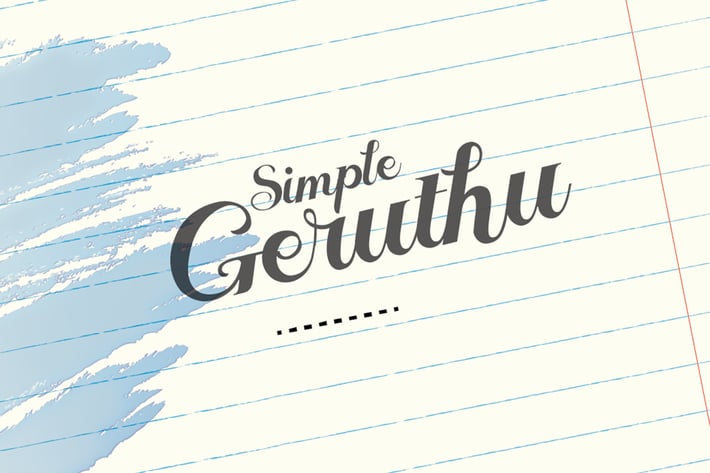
Geruthu Font
GERUTHU is a modern Display typeface with beauty in every single letter. It contains Uppercase and Lowercase character set !! GERUTHU allows you to create beautiful headlines, logos and titles in just minutes
Geruthu Unique Uppercase
Geruthu Unique Lowercase
Geruthu Unique Numbering and Symbol